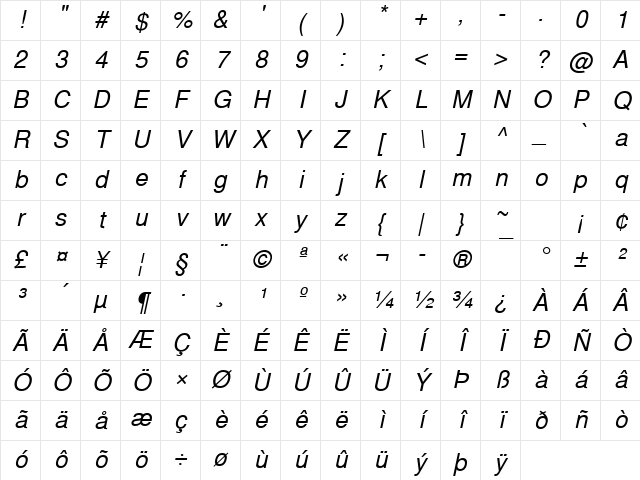
NimbusSanL Italic
Design Context for NimbusSanL
NimbusSanL is a composed and adaptable typeface that performs quietly and consistently across a wide range of design contexts. The slanted form adds forward momentum and visual energy.
Pro Tip: Use NimbusSanL for emphasis, pull quotes, and subheadings where its slanted energy can add rhythm to the layout.